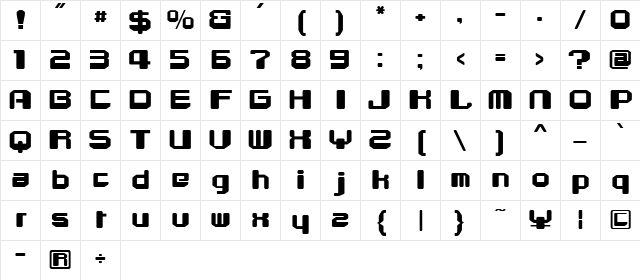
Cube2000 Regular Free Font
Cube2000 Regular
Design Context for Cube2000
Cube2000 is a composed and adaptable typeface that performs quietly and consistently across a wide range of design contexts.